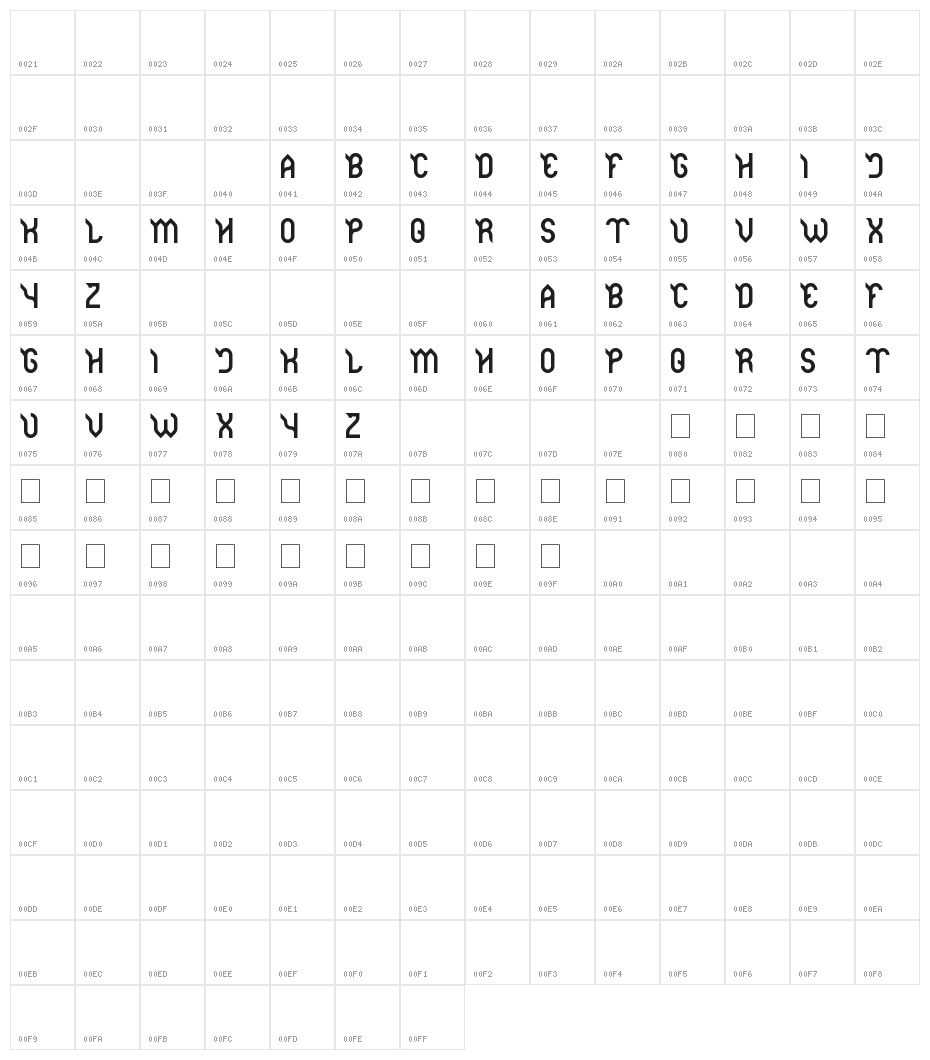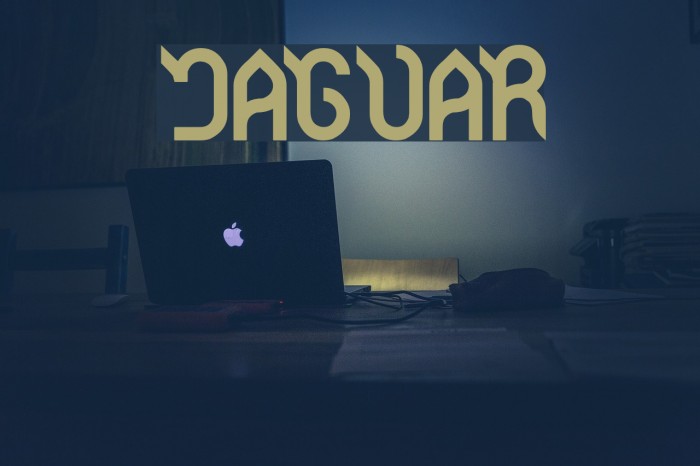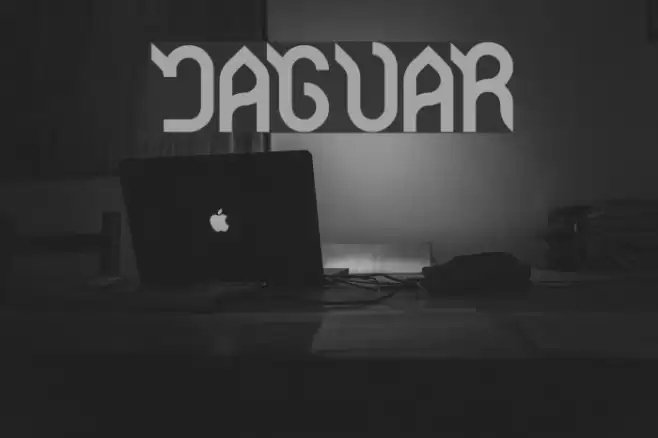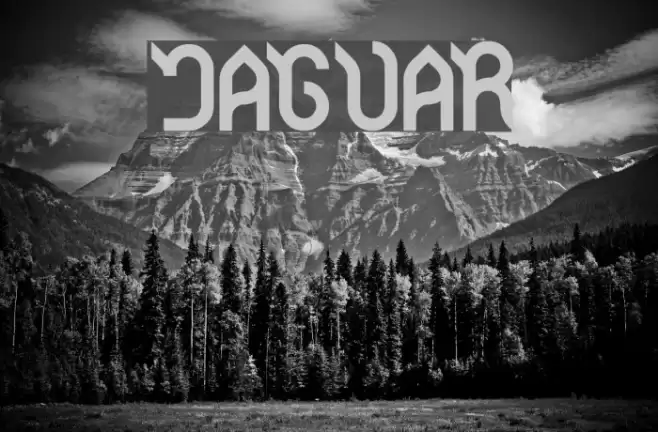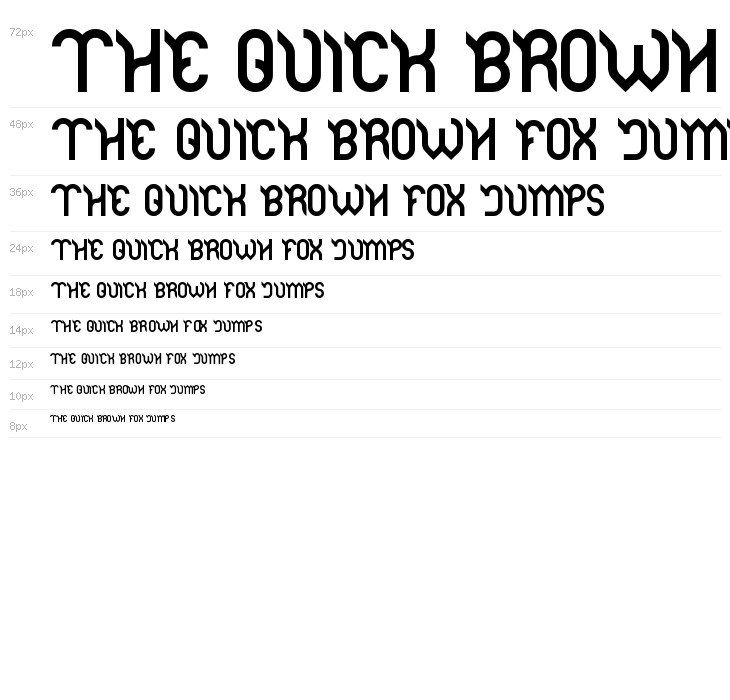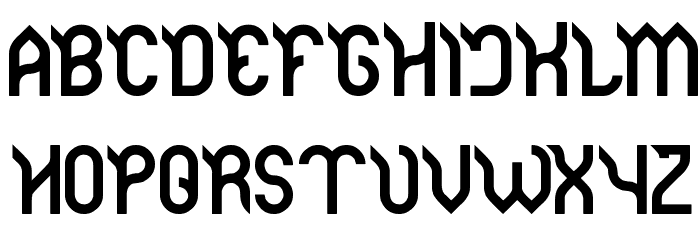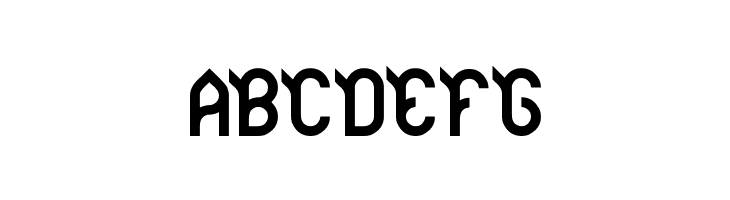
Jaguar Font
Jaguar Description
This font features a bold and striking design with a unique geometric style. The characters are crafted with sharp angles and clean lines, giving it a modern and futuristic appearance. The uppercase letters are particularly distinctive, with a consistent height and width that creates a uniform look. The lowercase letters maintain the same boldness, ensuring readability while adding a touch of elegance. The numbers are clear and easy to read, matching the overall aesthetic of the font. Special characters are designed with the same attention to detail, making them stand out while remaining cohesive with the rest of the typeface.
| Use Case | Logos, Headlines |
| Proposed Projects | Ideal for branding, logos, posters, and any project requiring a modern and impactful typeface. |